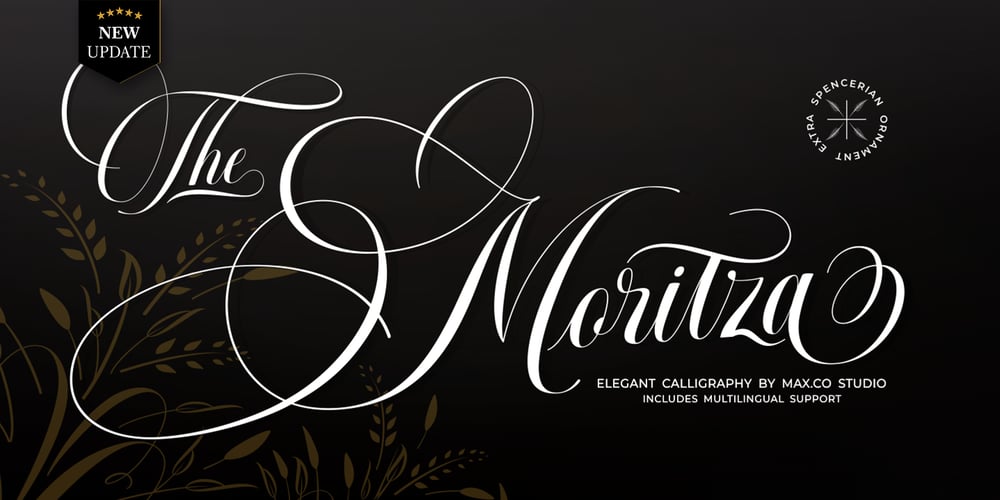
Moritza Script
Moritza Script font
Moritza Script Font Family was designed by Teuku Rinaldi Novianda and published by Max.co Studio. Moritza Script contains 4 styles and family package options. Moritza Script is a calligraphy script font that comes with a very beautiful character change, a kind of classic decorative copper script with a modern touch, designed with high detail, it took time since July 2019 – September 2020 to present an elegant style. Moritza Script is attractive as a typeface that is smooth, clean, feminine, sensual, glamorous, simple and very easy to read, because there are many fancy letter connections. I also offer a number of viable style alternatives for many letters. The classic style is perfect to be applied in various formal forms such as invitations, labels, restaurant menus, logos, fashion, make up, stationery, novels, magazines, books, greeting / wedding cards, packaging, labels or any type of advertising purpose.Moritza Script including various language support. With OpenType features with alternative styles and elegant ligatures. The OpenType feature does not work automatically. I highly recommend using a program that supports OpenType features and Glyphs panels such as Adobe Illustrator, Adobe Photoshop CC, Adobe InDesign, or CorelDraw, so you can see and access all Glyph variations.Moritza Script is encoded with Unicode PUA, which allows full access to all additional characters without having special design software. Mac users can use Font Book, and Windows users can use Character Map to view and copy one of the extra characters to paste into your favorite text editor / application.How to access all alternative characters using Adobe Illustrator:https://www.youtube.com/watch?v=XzwjMkbB-wQHow to access all alternative characters, using Windows Character Map with Photoshop:https://www.youtube.com/watch?v=Go9vacoYmBwIf you need help or have questions, please let me know. I’m happy to help.Thanks & Happy Designing!New Update • Moritza Script! Moritza has now been updated to include 3 styles; bold version, regular & italic version. This gives you the option to completely change your font style with the click of the mouse, whether you’re looking for a smoother style, a bold version, or an italic finish. And don’t forget the elegant touch of ornament.